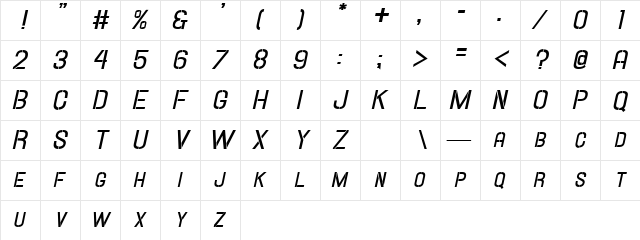
Complete Hallandale Stencil Bd.It. SC JL Regular glyph index. Displaying only characters natively supported by Hallandale Stencil Bd.It. SC JL Regular font.
Hallandale Stencil Bd.It. SC JL borrows the utilitarian aesthetic of stencil lettering, with its characteristic cutaways and no-frills construction lending an industrial edge. Its bold stroke weight gives it real presence on the page.
Pro Tip: Use Hallandale Stencil Bd.It. SC JL at large sizes on packaging, posters, or apparel where the stencil cutaways read clearly. Avoid small sizes where those gaps become visual noise.